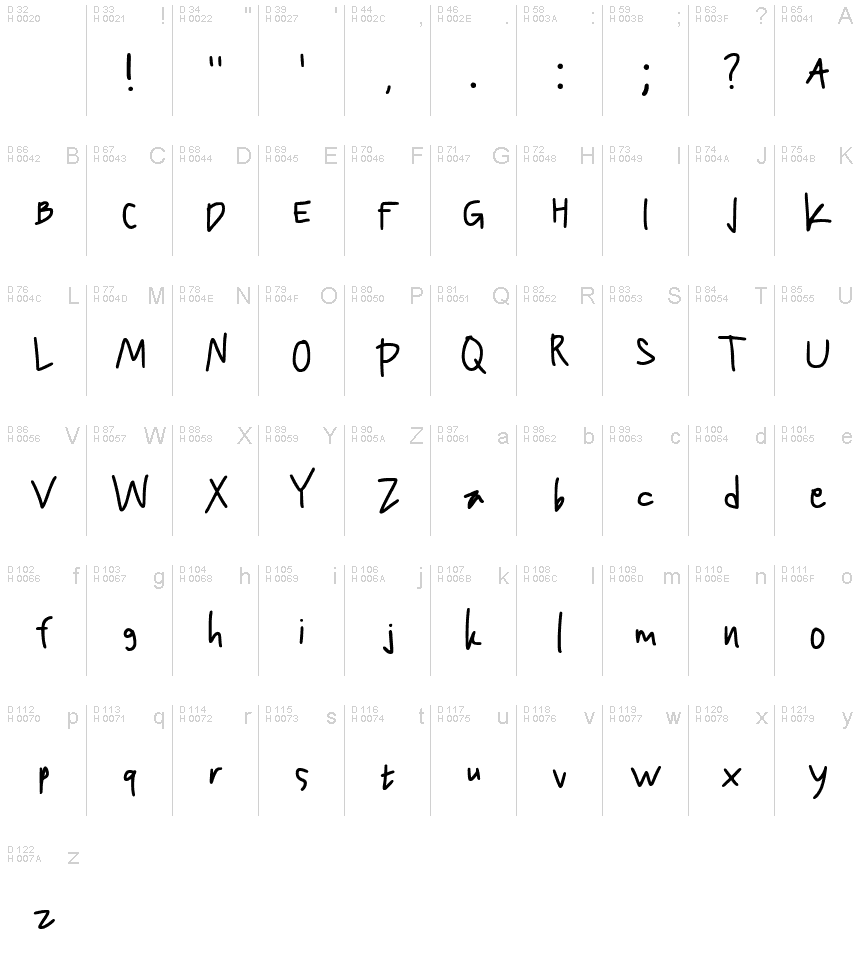
Handwrtsc Regular
Handwrtsc, a casual handwritten font by designer Svik, brings a touch of effortless charm to your projects. This semi-light font effortlessly captures the essence of hand-drawn text, perfect for adding a personal and relaxed feel to your designs. With its delicate strokes and playful curves, Handwrtsc is ideal for greeting cards, invitations, and whimsical branding projects. Whether you're creating a cozy café menu or designing a fun-loving logo for a children's brand, this font will bring an inviting warmth to any project. Let Handwrtsc infuse your designs with handwritten elegance.